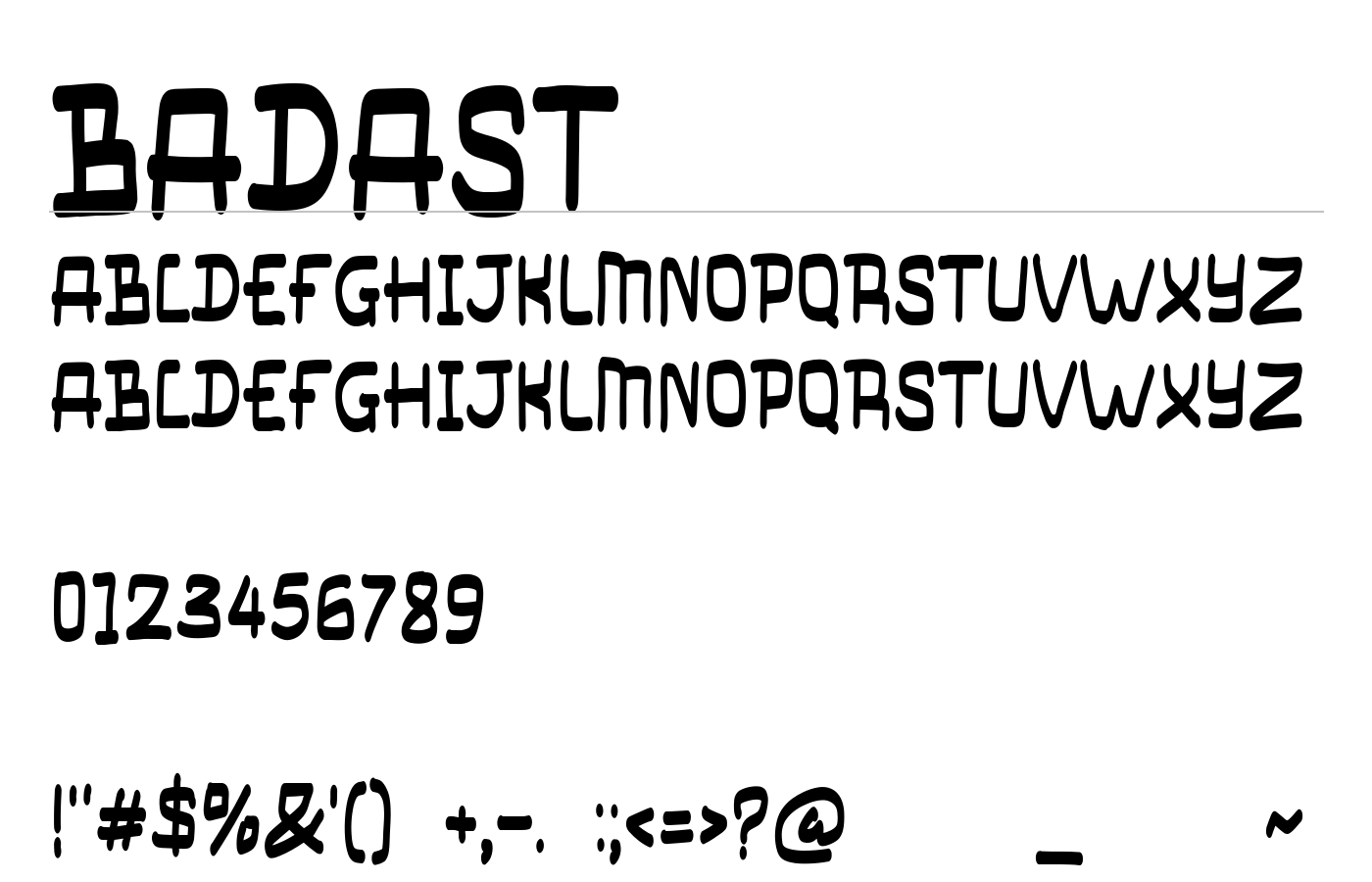
BADAST is a playful, hand-drawn sans serif font with a casual and slightly quirky feel. Its irregular, rounded letterforms and uneven strokes give it a friendly, informal personality that works well for creative projects, children’s content, or brands seeking a fun and approachable vibe. This font stands out in headlines, logos, and packaging where a relaxed, youthful style is desired.
BADAST Font
About BADAST Font